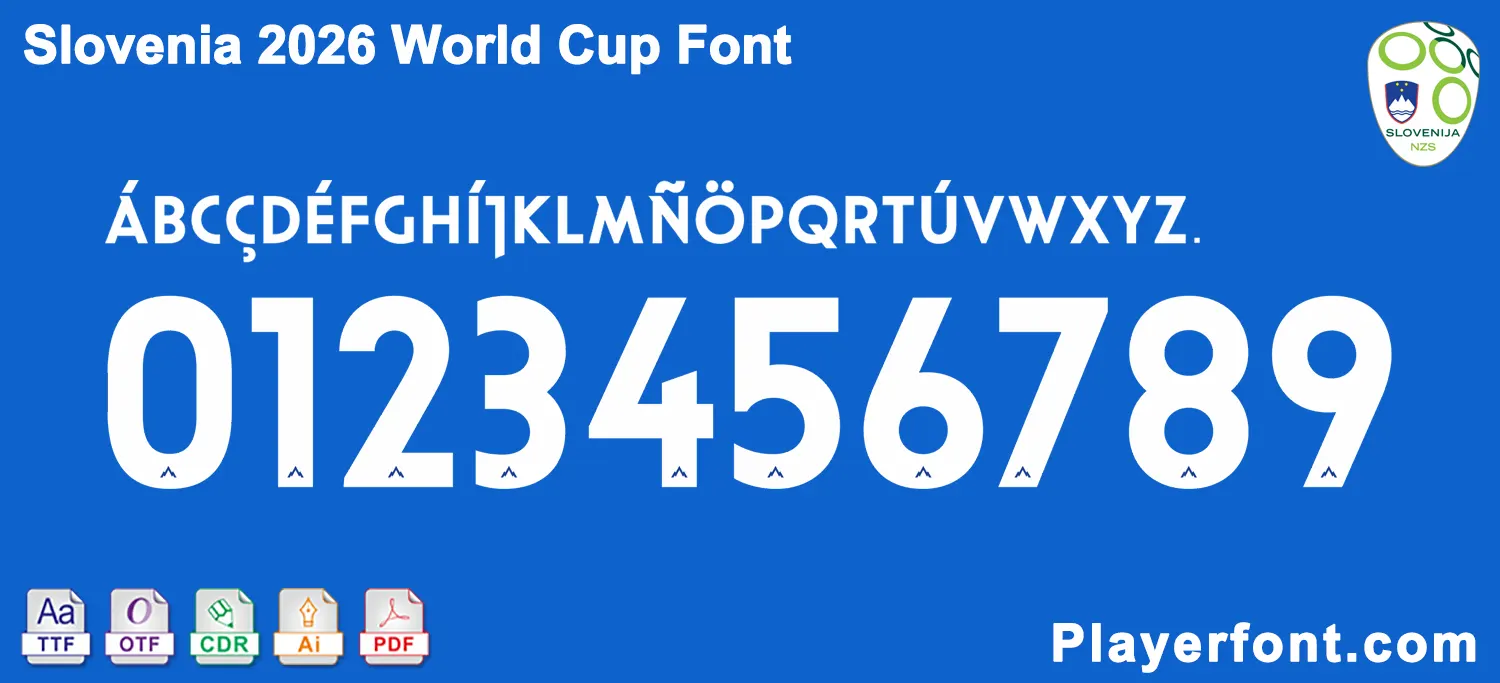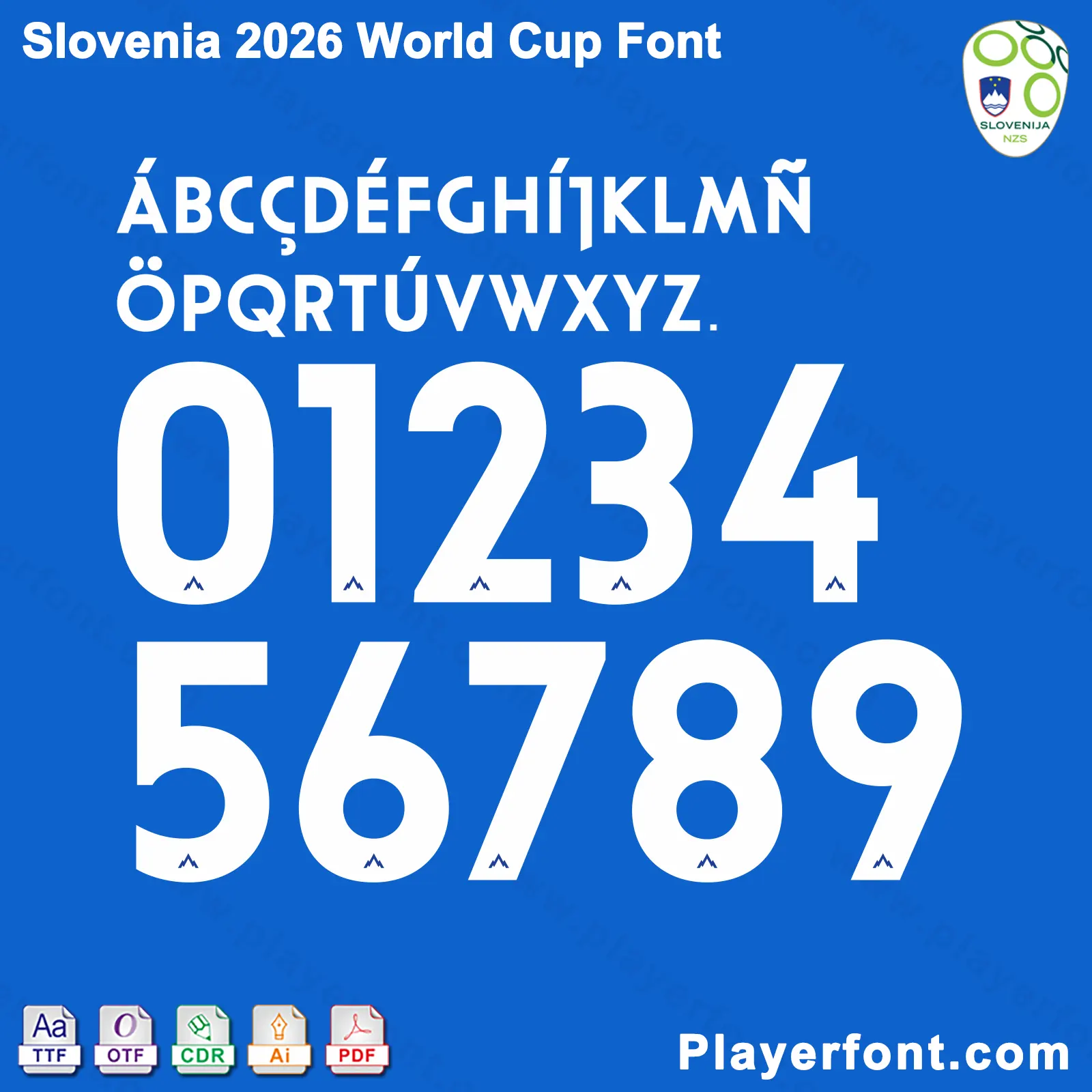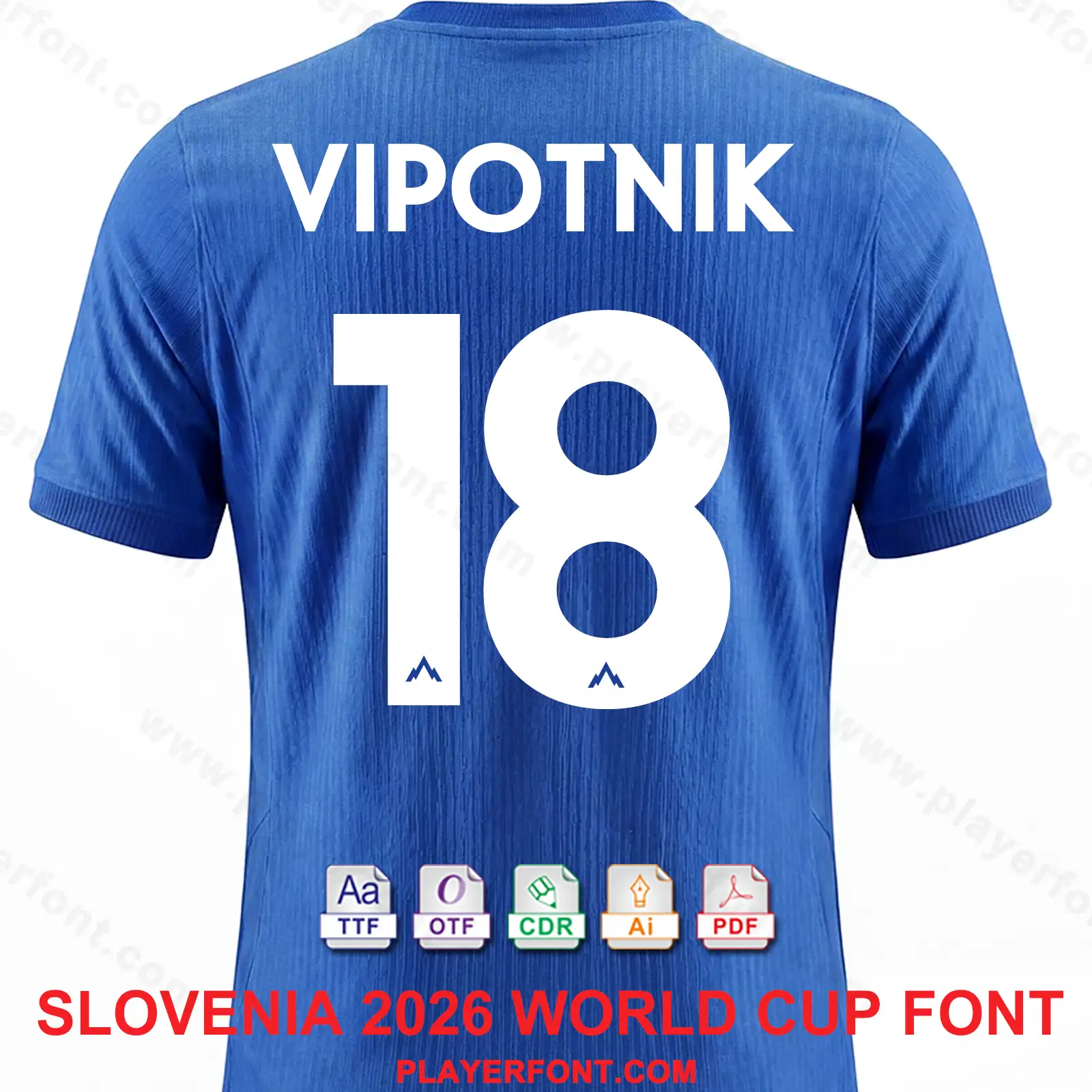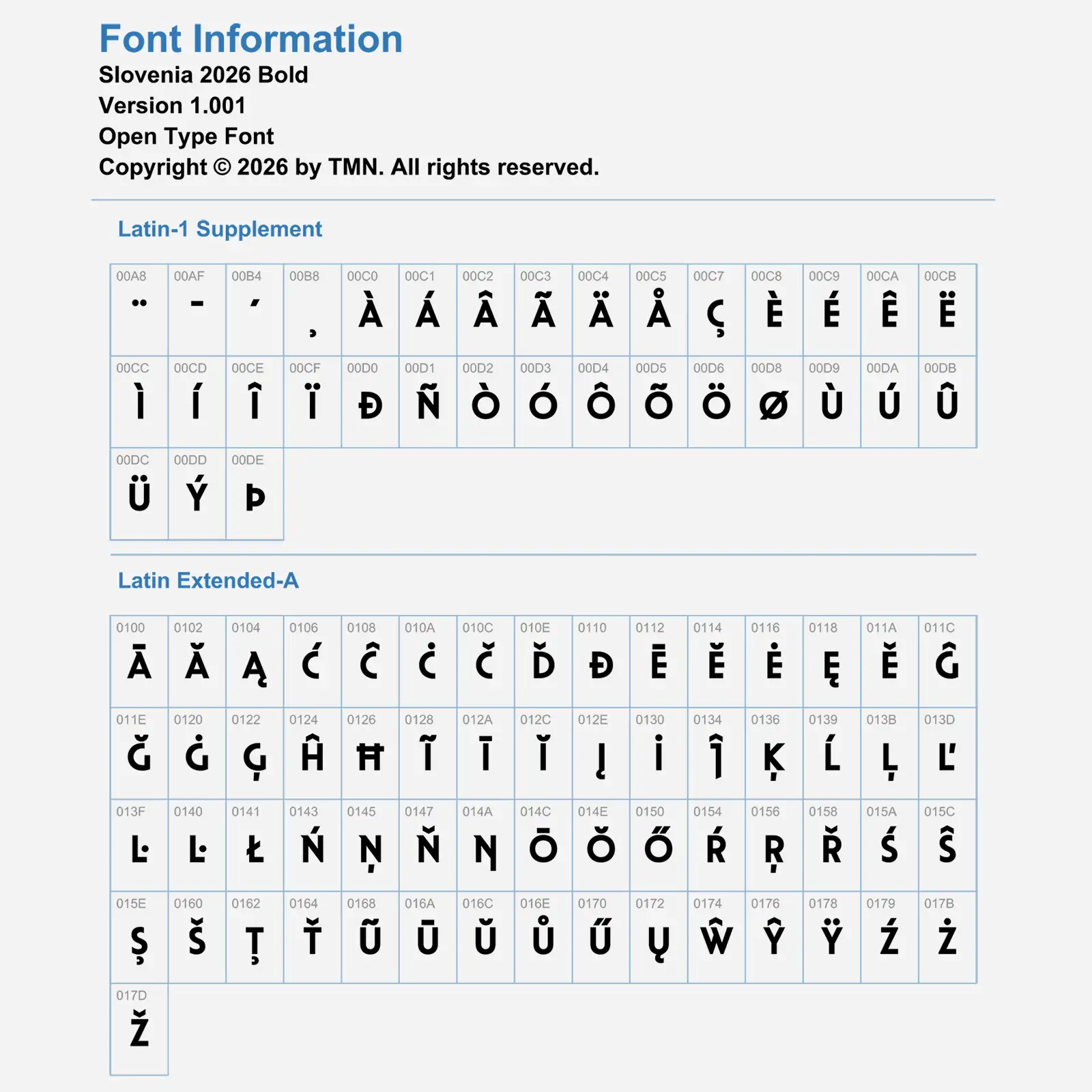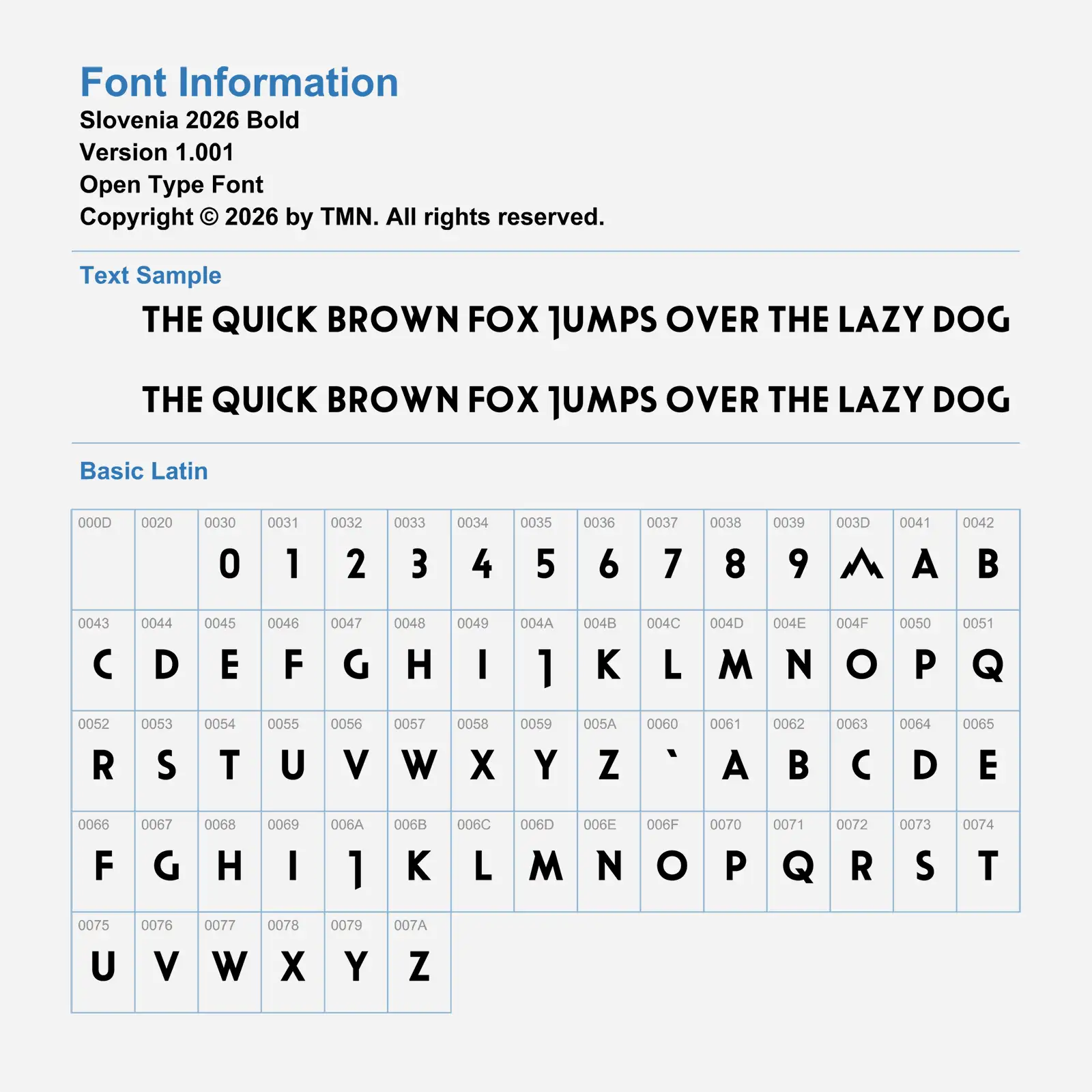
Elevate your sports jersey mockups, football custom graphics, and vector apparel printing projects with the high-quality Slovenia World Cup 2026 Font Download. Masterfully engineered by Playerfont.com, this high-performance typography set replicates the official-style numbers and sharp geometric lettering featured on the pitch for the upcoming FIFA 2026 international tournament campaigns.
Key Typography Features & Character List:
This typography pack is fully optimized to support international player rosters and diverse numbering layouts:
- Basic Latin & Geometric Layout: Contains a bold, modern uppercase character set, geometric block letters, numbers (0-9), periods, and hyphens.
- Advanced International Accent Support: Includes a complete set of accents (such as Á, B, C, Ç, D, É, F, G, H, Í, J, K, L, M, Ñ, Ö, P, Q, R, T, Ú, V, W, X, Y, Z, Š, Ž, and Č) ensuring flawless rendering for global football stars and localized naming requirements (such as Vipotnik, Šeško, Oblak, etc.).
- Authentic Visual Details: The sleek, minimalist jersey numbers feature a premium custom cutout at the base framing Slovenia’s iconic mountain peak emblem, capturing the true spirit of the national team.
| Design Feature | Geometric Block Styling with Mountain Emblem Inlay Base |